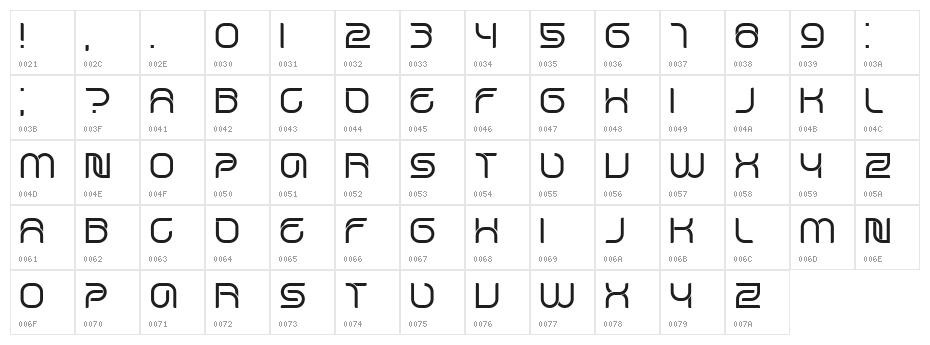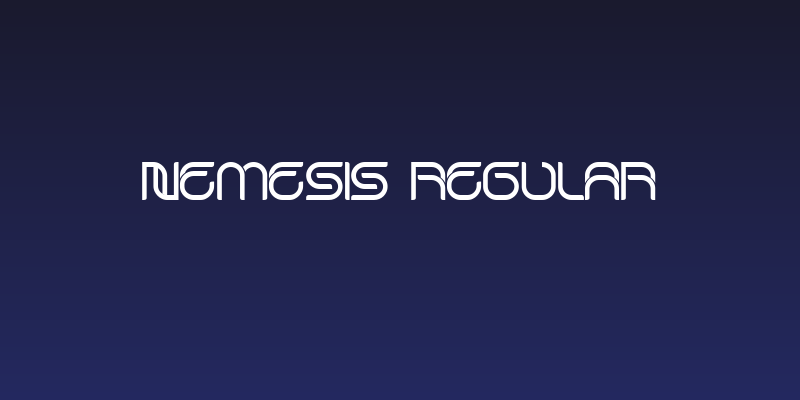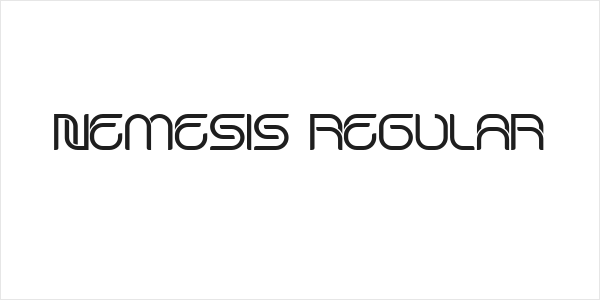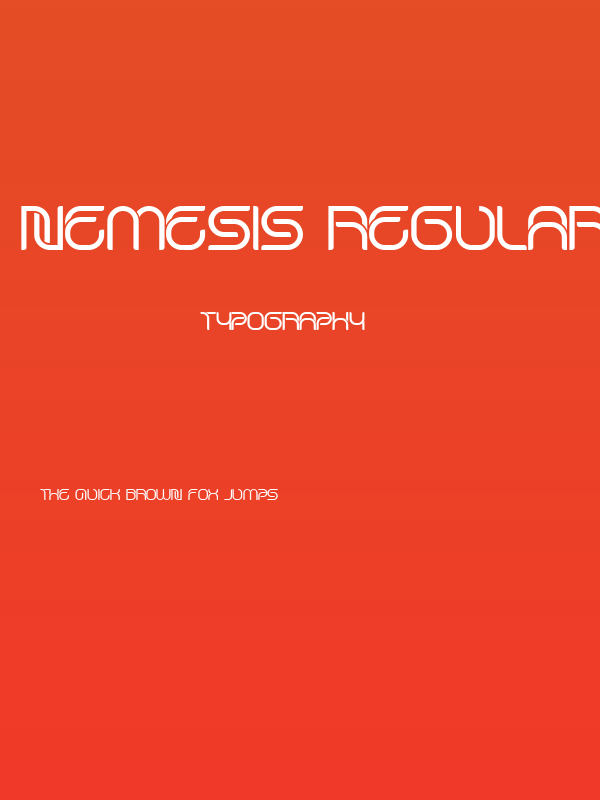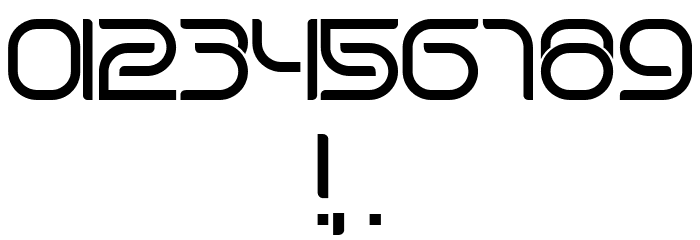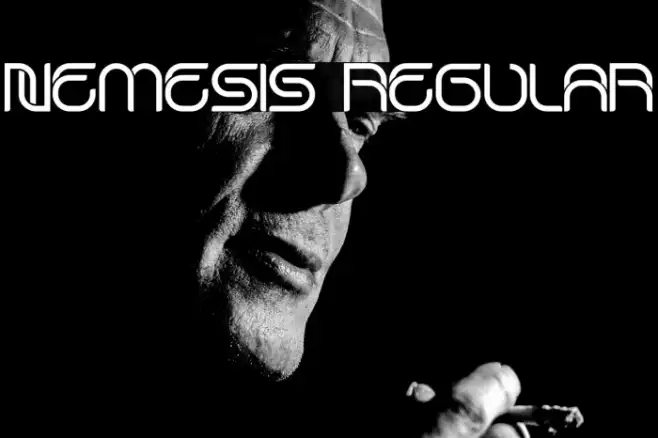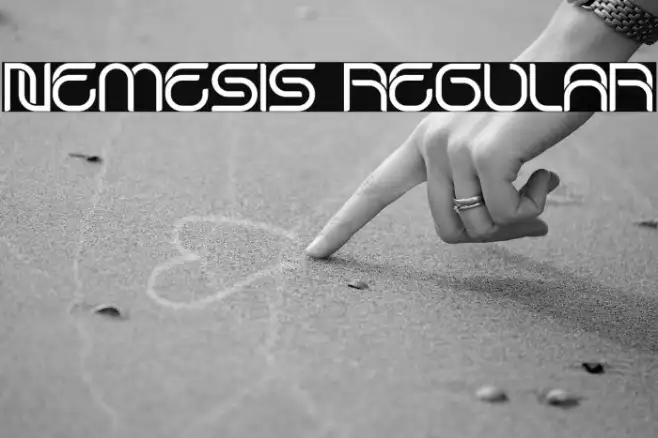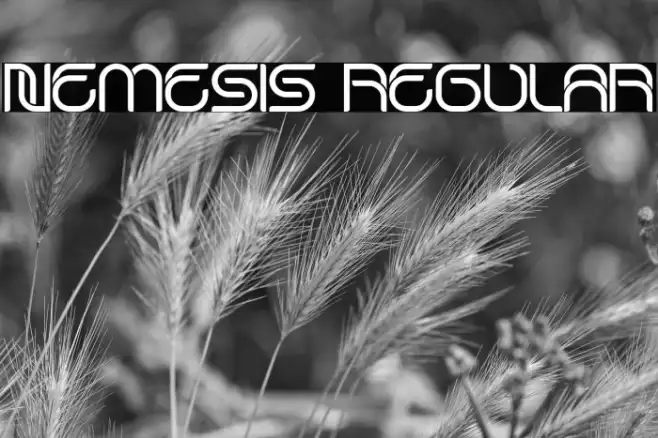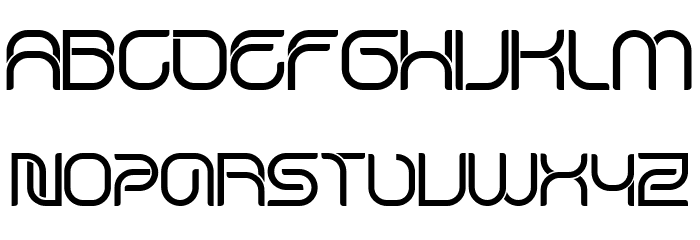
Nemesis Regular Font
Nemesis Regular Description
This font features a futuristic and geometric design, characterized by its rounded edges and uniform line thickness. The uppercase letters are distinct with a modern, sleek appearance, while the lowercase letters maintain a consistent style that complements the uppercase. The numerals are bold and clear, ensuring readability. Special characters are designed with the same geometric precision, making them stand out. The overall aesthetic is clean and minimalistic, suitable for contemporary design projects.
| Proposed Projects | Ideal for tech branding, modern advertising, digital interfaces, and sci-fi themed projects. |